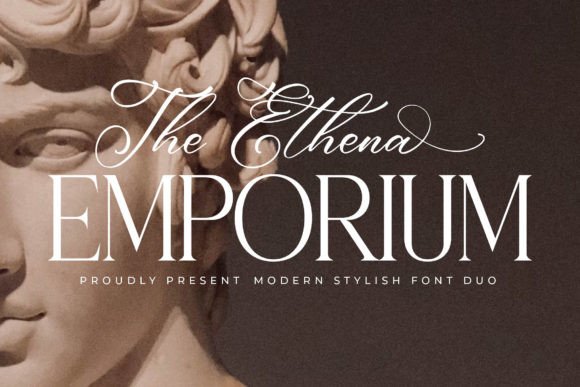
Journey into the realm of typography and discover Ethena Emporium Font Duo, a captivating serif and script typeface that will ignite your creativity. Crafted by Storytype Studio, this font family is a masterpiece of elegance and sophistication, designed to elevate your designs to new heights.
Ethena Emporium is not just a font; it's an experience that will transform your words into works of art. Its graceful serifs and flowing script dance together harmoniously, creating a visual symphony that captivates the eyes. Whether you're a graphic designer, a marketer, or simply a lover of beautiful typography, Ethena Emporium is the perfect choice for you.
With its timeless aesthetic, Ethena Emporium is the ideal font for creating elegant logos that exude professionalism and luxury. Its refined curves and delicate details will make your brand stand out from the crowd, leaving a lasting impression on your audience.
Step into the world of fashion and let Ethena Emporium elevate your designs. Its modern look and chic style will add an air of sophistication to your clothing labels, magazine spreads, and social media posts. Watch as your creations transform into captivating visual statements that speak volumes about your brand's personality.
Ethena Emporium's versatility extends to the realm of art and creativity. Whether you're designing movie titles, book covers, or simply creating stunning quotes for your social media feed, this font will add a touch of magic to your work. Its ability to convey emotions and set the tone of your message makes it an indispensable tool for any creative professional.
But Ethena Emporium is more than just a beautiful font; it's a gateway to a world of endless possibilities. Its versatility allows it to adapt seamlessly to any project, from formal invitations to playful posters. Unleash your imagination and explore the countless ways in which Ethena Emporium can bring your vision to life.
Don't settle for ordinary fonts that blend into the background. Choose Ethena Emporium and embark on a typographic adventure that will leave you breathless. Its unique style and captivating presence will make your designs shine brighter than ever before.
So, embrace the beauty of Ethena Emporium and watch as your creative projects blossom into masterpieces. Let your words dance with grace and elegance, and experience the transformative power of typography.